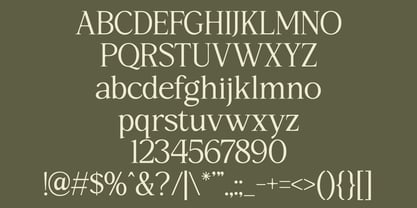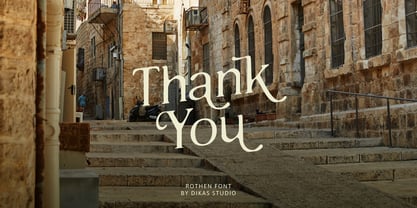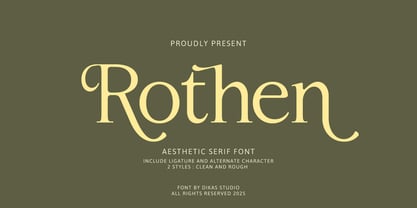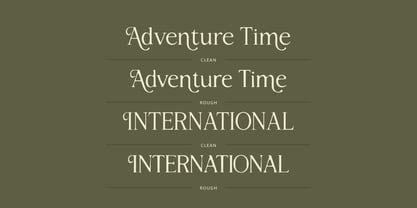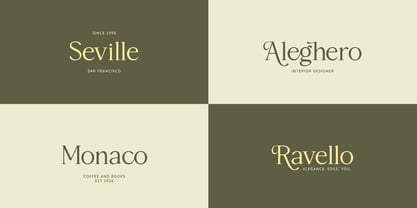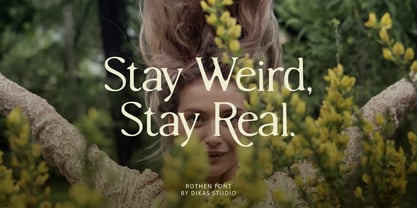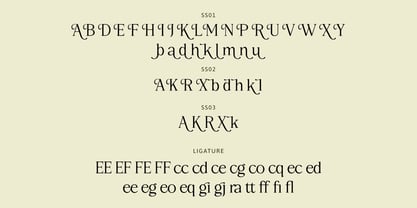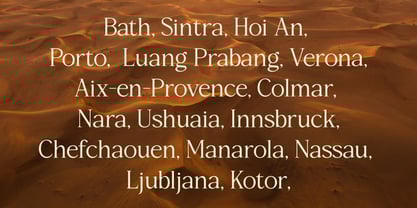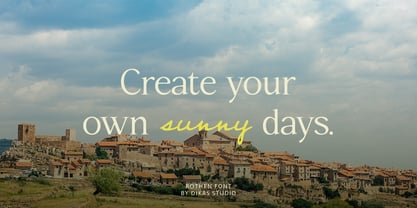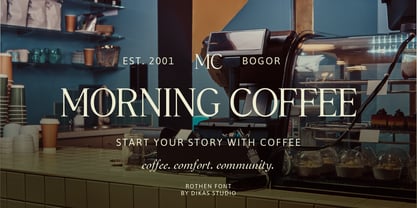
Rothen
by Dikas Studio
The Rothen Font Family was designed by Andika Setiawan, Hasnul Bolkiah and published by Dikas Studio. Rothen contains 2 styles and family package options. More about this family
Rothen – Aesthetic Serif Font
Rothen is a stylish serif font that blends elegance with artistic character. Designed with attention to detail, Rothen offers a graceful aesthetic enhanced by beautifully crafted alternate characters and ligatures — perfect for creating expressive and high-end typography.
This versatile typeface comes in two distinct styles: Clean for a refined, polished look, and Rough/Handdrawn for a more organic, handcrafted feel. Whether you're working on fashion editorials, luxury branding, wedding invitations, or sophisticated packaging, Rothen adapts effortlessly to elevate your design.
Add a touch of beauty and personality to your work with Rothen — where elegance meets versatility.
Designers: Andika Setiawan, Hasnul Bolkiah
Foundry: Dikas Studio